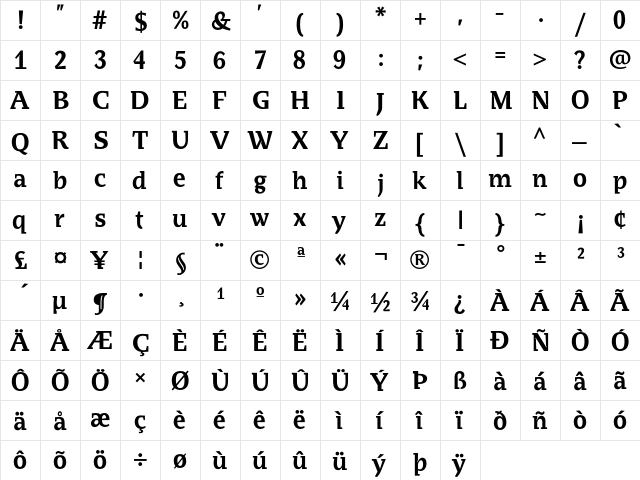
BradloSlab Bold
Design Context for BradloSlab Typeface
BradloSlab features prominent, blocky serifs that give it a confident, grounded presence — equally at home in editorial settings and bold branding work. The heavy weight commands attention and anchors typographic hierarchies.
Suited to magazines, political campaign materials, bold packaging, and any setting where authority matters.
Pro Tip: Use BradloSlab for headlines and subheadings where its slab serifs can make an impression. It also holds up well in mid-size body copy thanks to its sturdy construction.